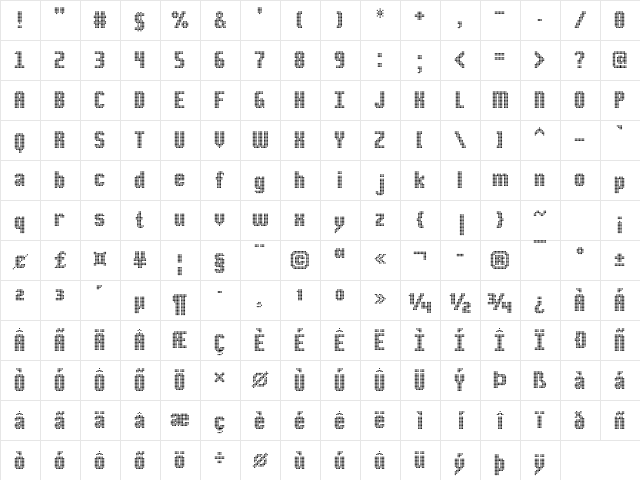
DS-Point Regular
Design Context for DS-Point Typeface
DS-Point takes a measured approach to typography — its balanced proportions and neutral character make it a reliable workhorse for both digital and print work.